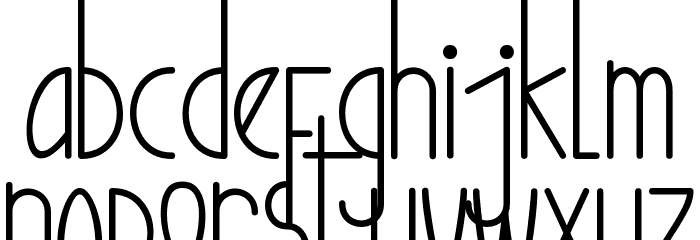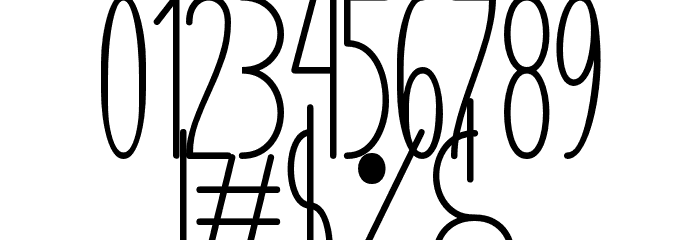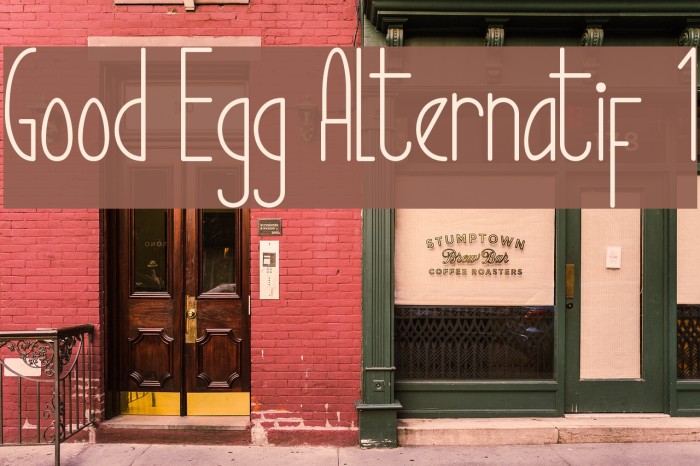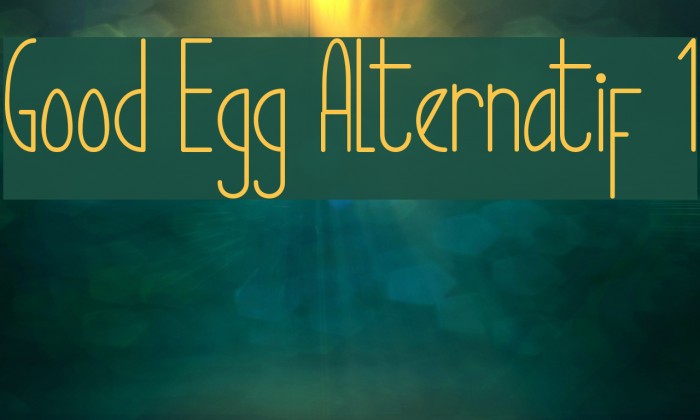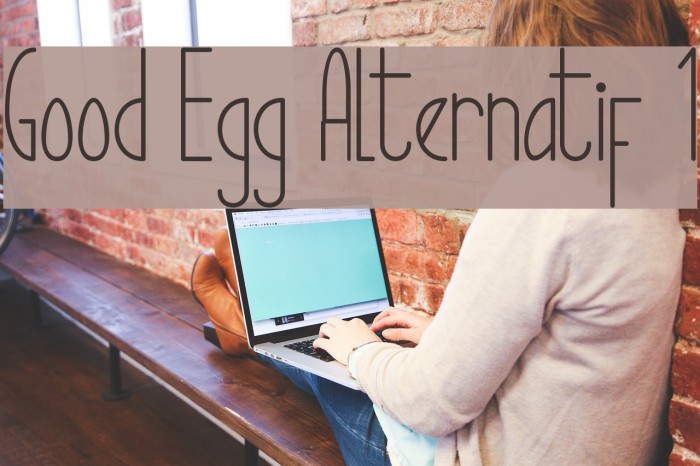
Good Egg Alternatif 1 Font
This font features a unique and modern design with elongated, narrow characters that give it a distinct and stylish appearance. The letters are tall and slender, with a consistent stroke width that provides a clean and minimalistic look. The uppercase and lowercase letters maintain a cohesive style, with subtle curves and straight lines that create a harmonious balance. The numerals are similarly designed, offering a sleek and contemporary feel. Special characters are included, maintaining the same aesthetic, making this font versatile for various applications.
A modern, narrow font with elongated characters and a clean, minimalistic style.
- Proposed Projects: Ideal for modern branding, fashion magazines, minimalist posters, and contemporary web design.